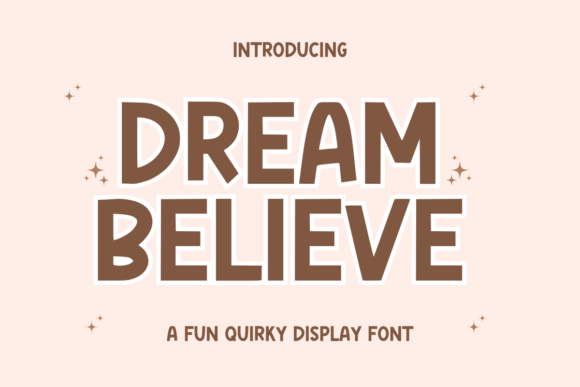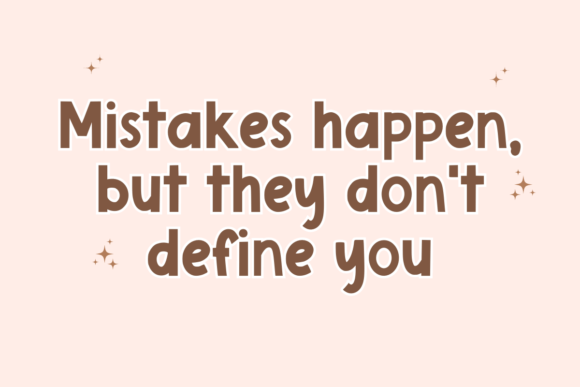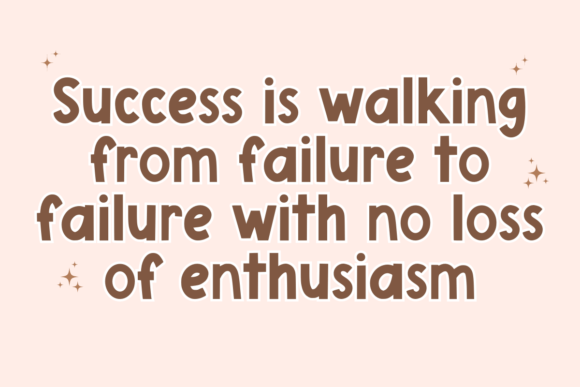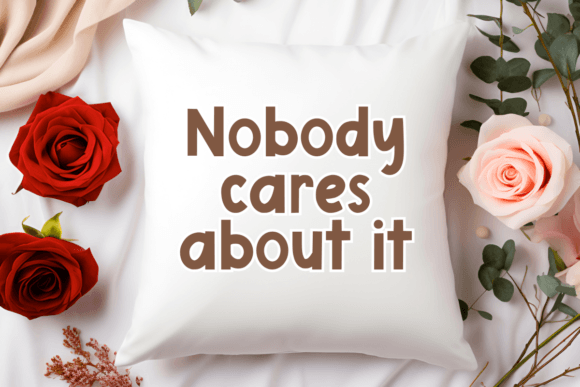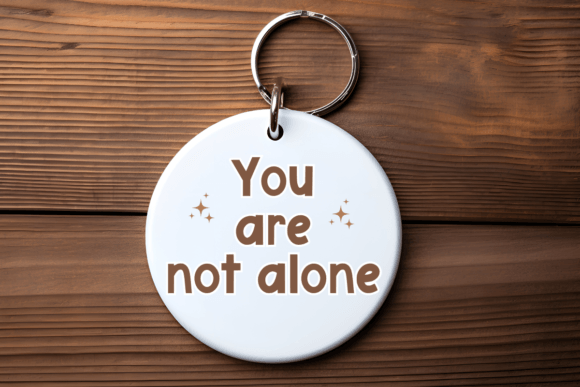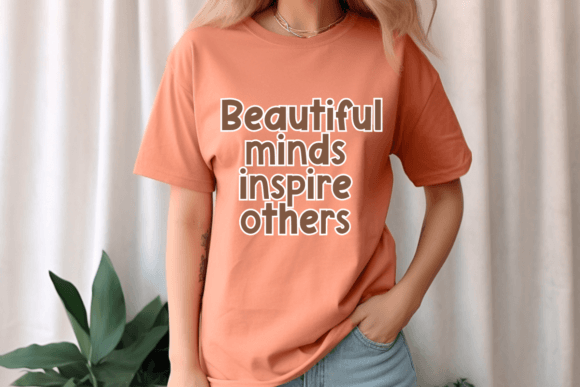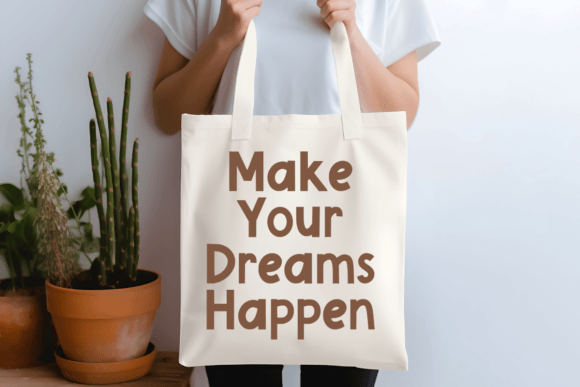
Unlock Your Creativity with Dream Believe Font
Have you ever stared at a blank page, eager to bring a fresh idea to life, but struggling to find the right words? We’ve all been there. It’s the moment when inspiration strikes, and the world of possibilities opens up. For designers, this moment is a constant pursuit – to create something truly special that captures the essence of their vision.
Enter the Dream Believe Font, a charming display font that embodies the spirit of creativity and optimism. With its natural and unique style, this font is the perfect companion for designers looking to add a personal touch to their projects. Whether you’re working on a logo, social media campaign, or packaging design, the Dream Believe Font is sure to inspire your imagination and bring your ideas to life.
This versatile font is a valuable addition to any designer’s toolkit, offering endless possibilities for creative expression. So why settle for ordinary when you can dream big with the Dream Believe Font?
Dream Believe Font Key Features
- Unique Characteristics: This font features a unique blend of elegance and whimsy, making it perfect for designs that require a touch of sophistication and playfulness.
Dream Believe Font Review
I recently had the chance to work with the Dream Believe Font, and I must say it’s a unique and intriguing addition to any design project. Here are my honest thoughts on its strengths and weaknesses.
- Expressive Nature – This font is perfect for conveying emotions and adding a touch of whimsy to your design.
- High Legibility – Despite its quirky appearance, Dream Believe Font is surprisingly easy to read, making it suitable for a wide range of applications.
- Creativity Boost – This font is sure to inspire your design team and help you break free from traditional typography.
- Not Ideal for Body Text – While it’s perfect for headings and titles, Dream Believe Font may not be the best choice for large blocks of body text.
- Limited Font Sizes – This font may not scale well at very small or very large sizes, which could be a limitation for certain design projects.
Overall, I think the Dream Believe Font is a fantastic choice for designers looking to add some personality to their work. With its expressive nature, high legibility, and creativity boost, it’s a great addition to any design project. However, its limitations should be taken into consideration, especially when it comes to body text and font sizing.
Use the Dream Believe Font to add a touch of elegance and sophistication to your designs. Pair it with bold colors and simple shapes to create a striking visual effect.
The Dream Believe Font is perfect for:
- Business cards and branding materials
- Quotes and inspirational graphics
Alternatives to Dream Believe Font
Great Vibes is a beautiful, handwritten font perfect for creating a friendly and approachable atmosphere. It’s ideal for use in headings, titles, and quotes where you want to add a touch of elegance and sophistication. Great Vibes is more cursive and flowing compared to Dream Believe Font, which is more geometric and bold.
Creamy
Creamy is a soft, elegant font that’s perfect for creating a warm and inviting atmosphere. It’s ideal for use in body text, headings, and titles where you want to add a touch of sophistication and refinement. Creamy is more delicate and refined compared to Dream Believe Font, which is more bold and eye-catching.